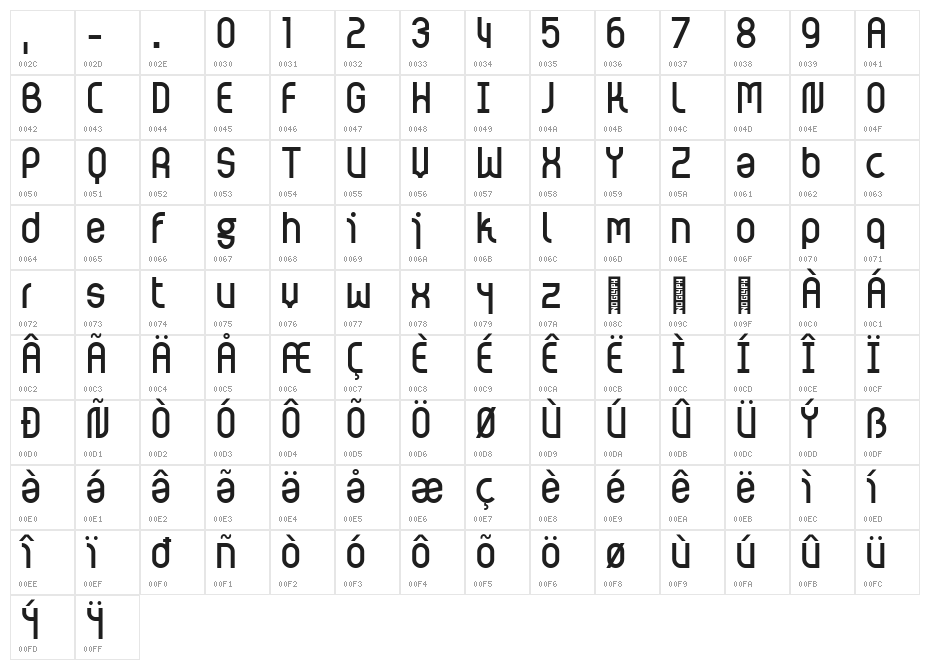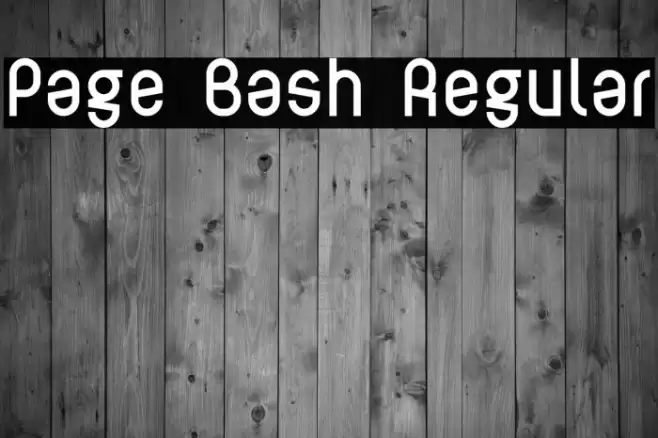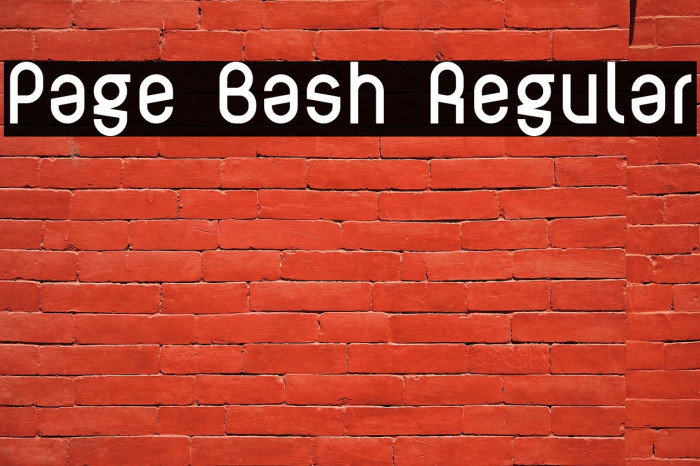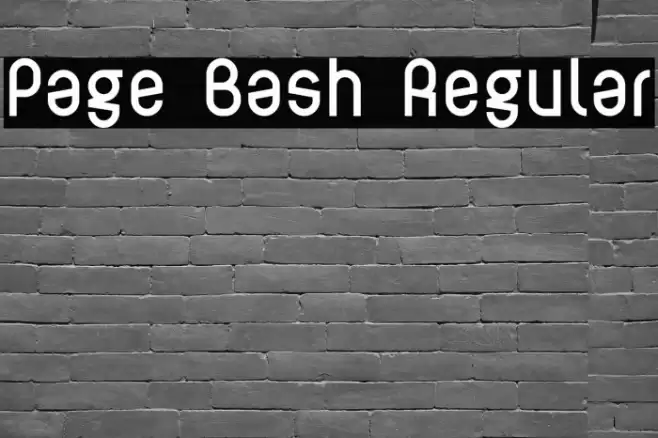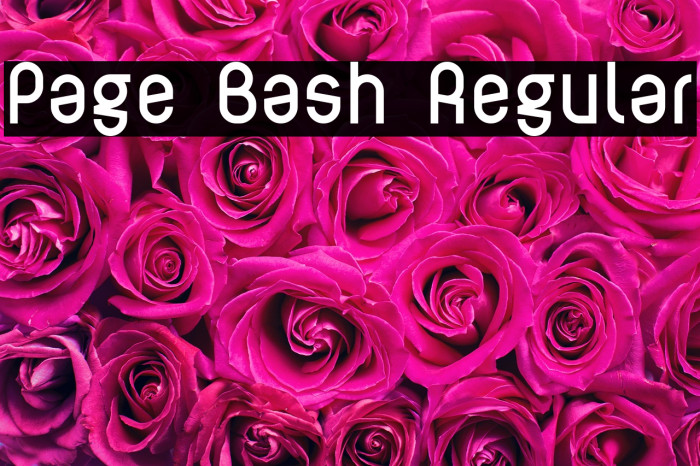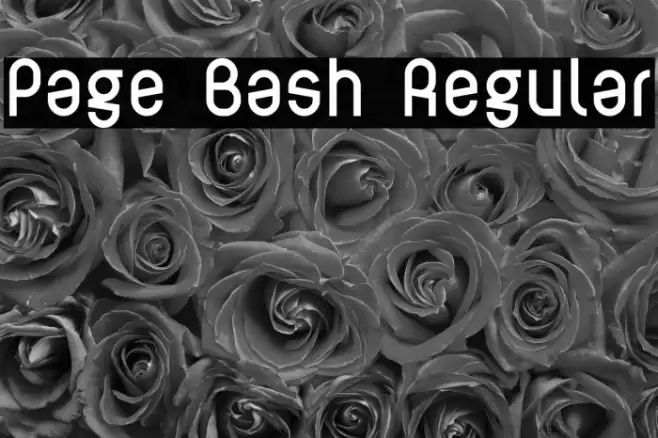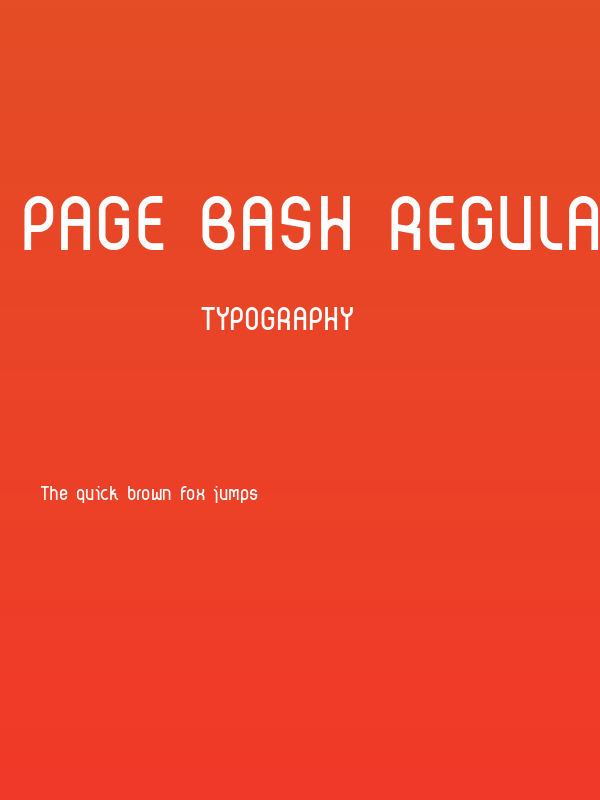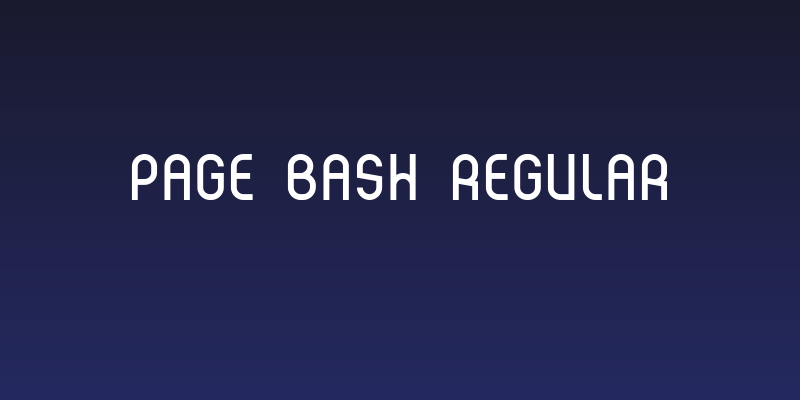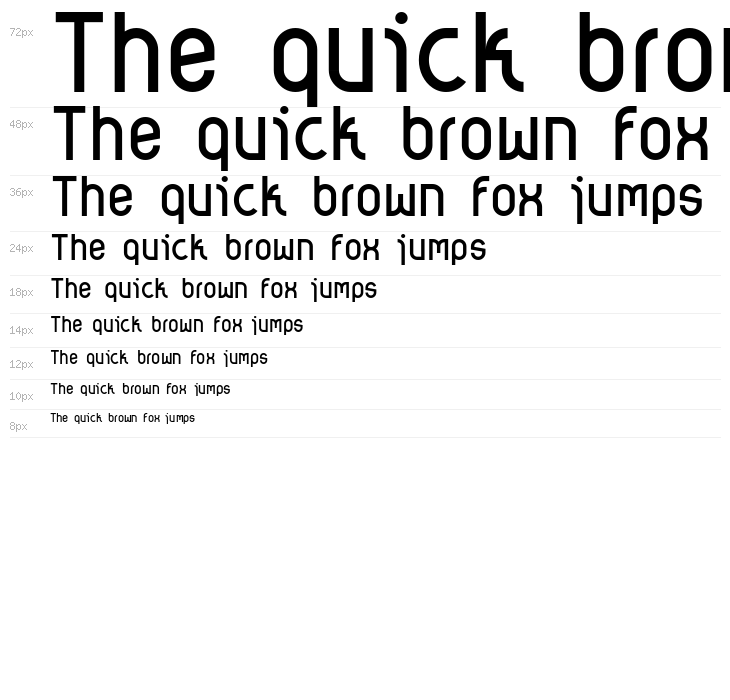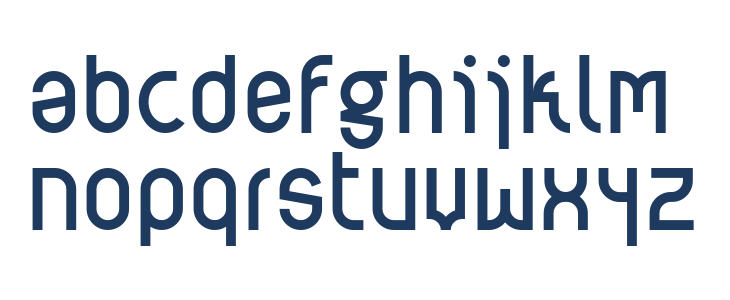
Page Bash Regular Font
Page Bash Regular Description
This font features a modern, geometric design with clean, straight lines and rounded corners, creating a harmonious balance between structure and softness. The uppercase letters are uniform in height, while the lowercase letters maintain a consistent baseline, enhancing readability. The numerals are distinct and easily distinguishable, with a contemporary flair that complements the overall style. Special characters are elegantly integrated, maintaining the font's cohesive appearance. The font's simplicity and clarity make it versatile for various design applications.